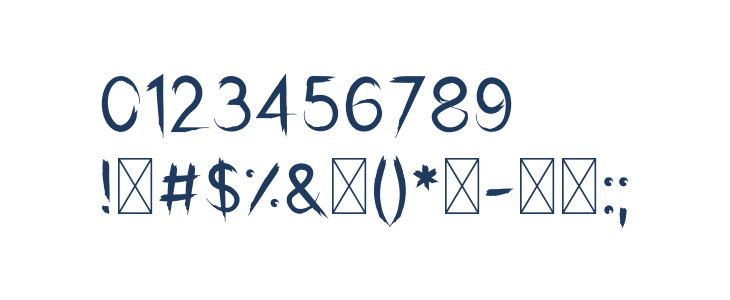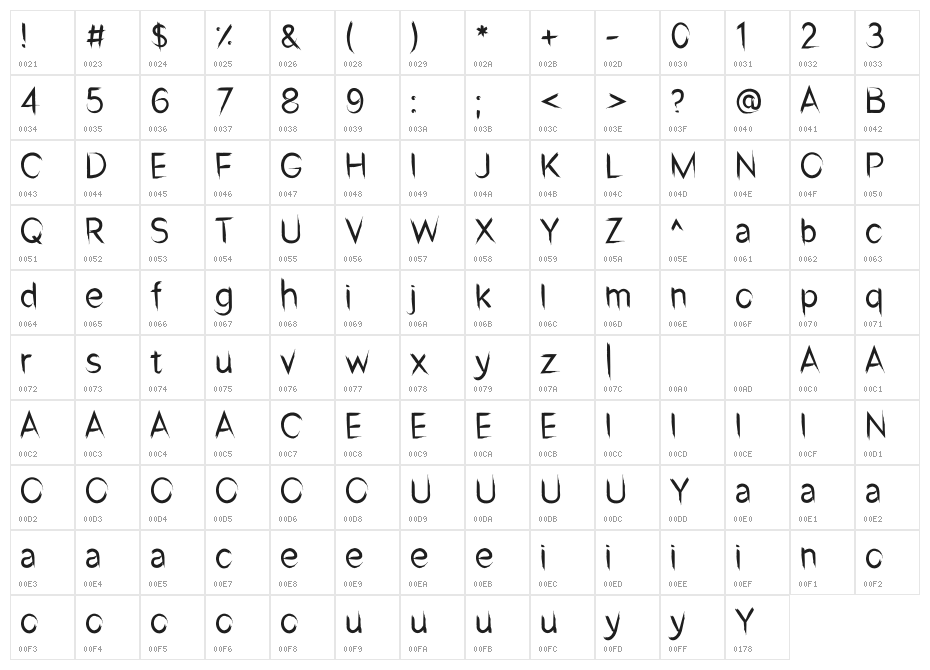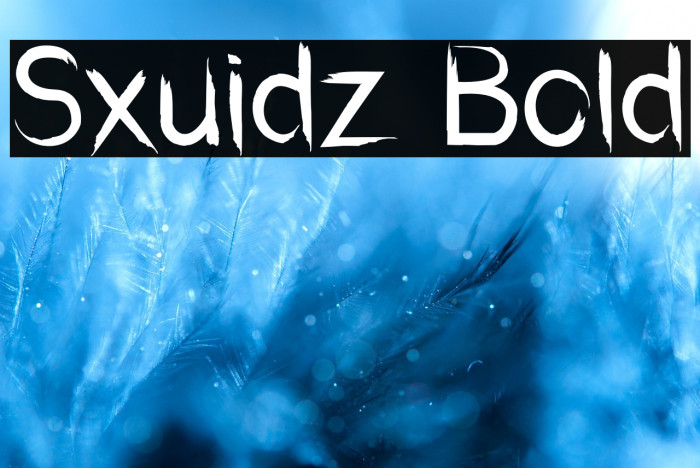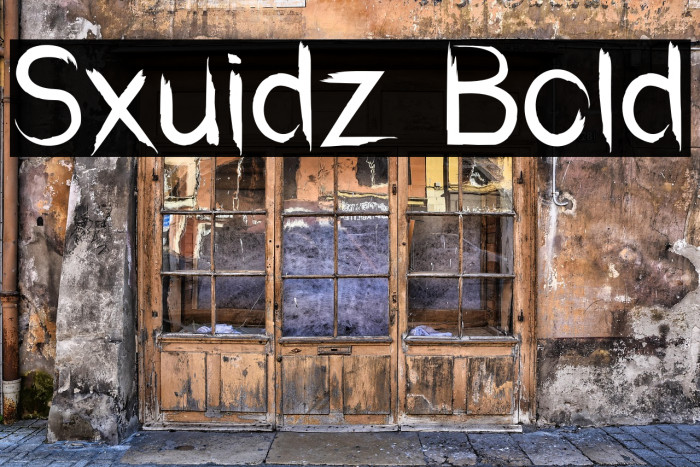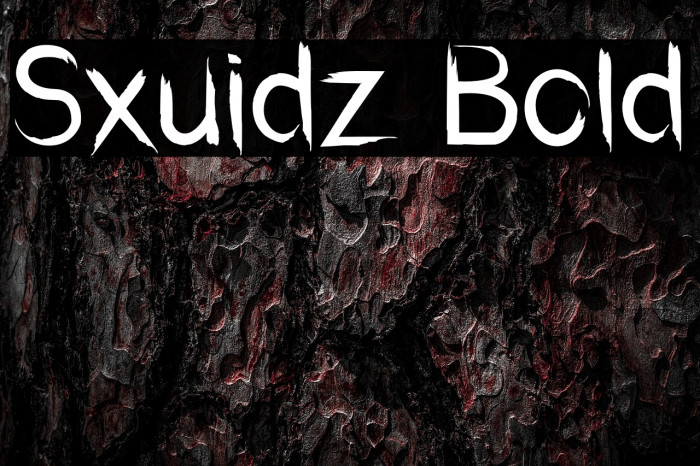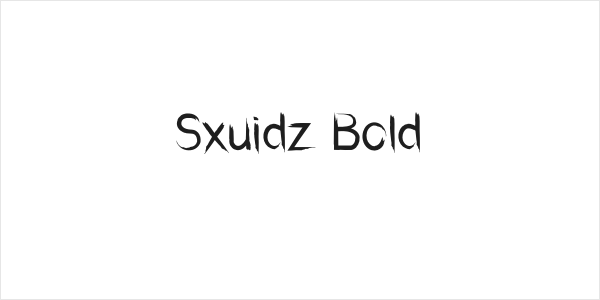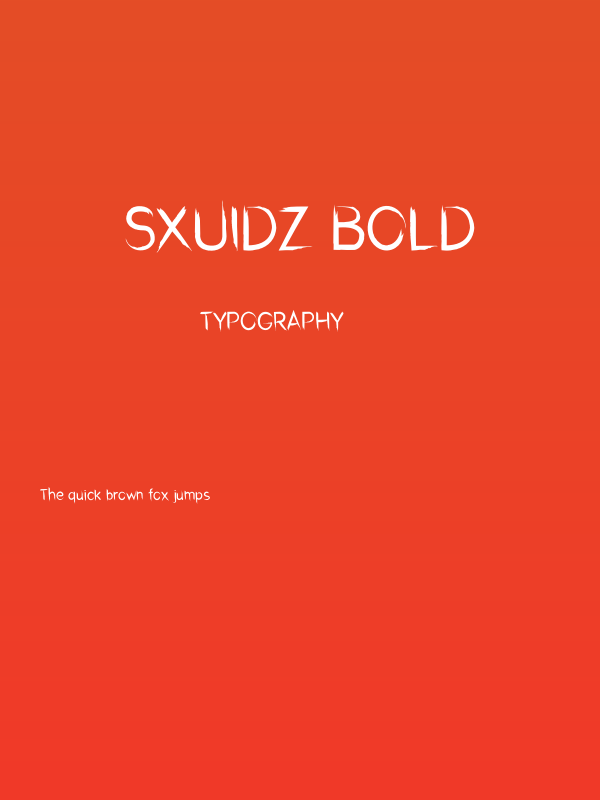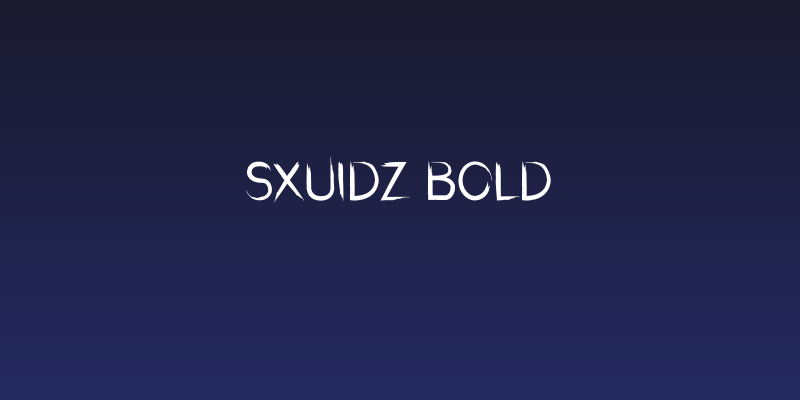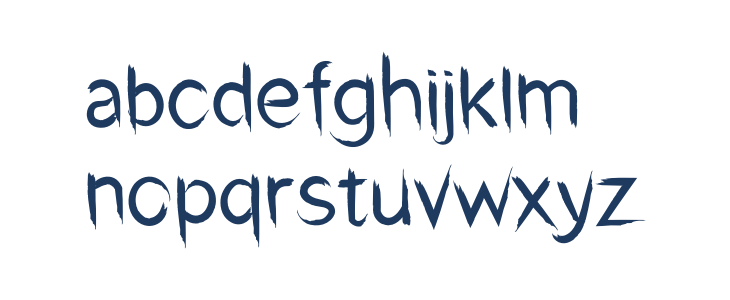
Sxuidz Bold Font
Sxuidz Bold Description
This font features a bold and dynamic style with sharp, jagged edges that give it a fierce and energetic appearance. The uppercase and lowercase letters maintain a consistent height, while the numbers and special characters follow the same edgy design. The strokes are uneven, adding a sense of movement and intensity. This font is perfect for projects that require a dramatic and eye-catching look, such as posters, album covers, or video game titles. Its unique style makes it stand out, capturing attention with its bold presence.
| Proposed Projects | Ideal for posters, album covers, video game titles, and any project needing a dramatic flair. |